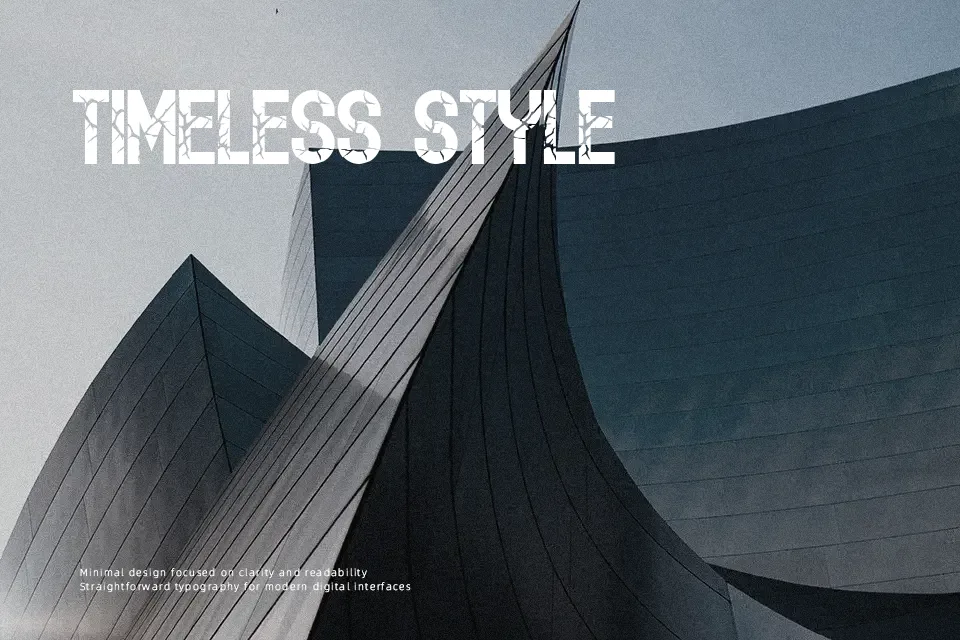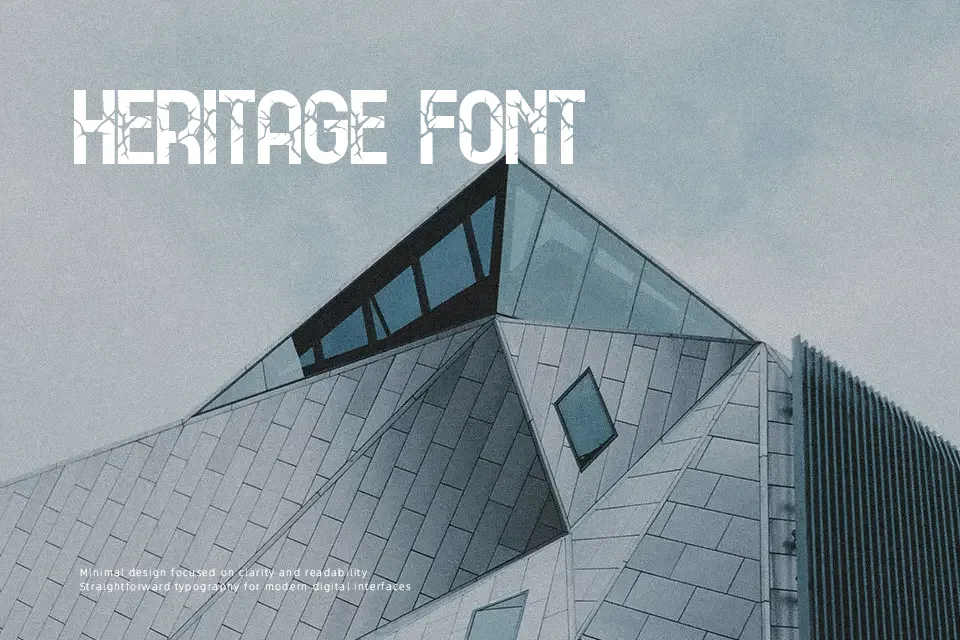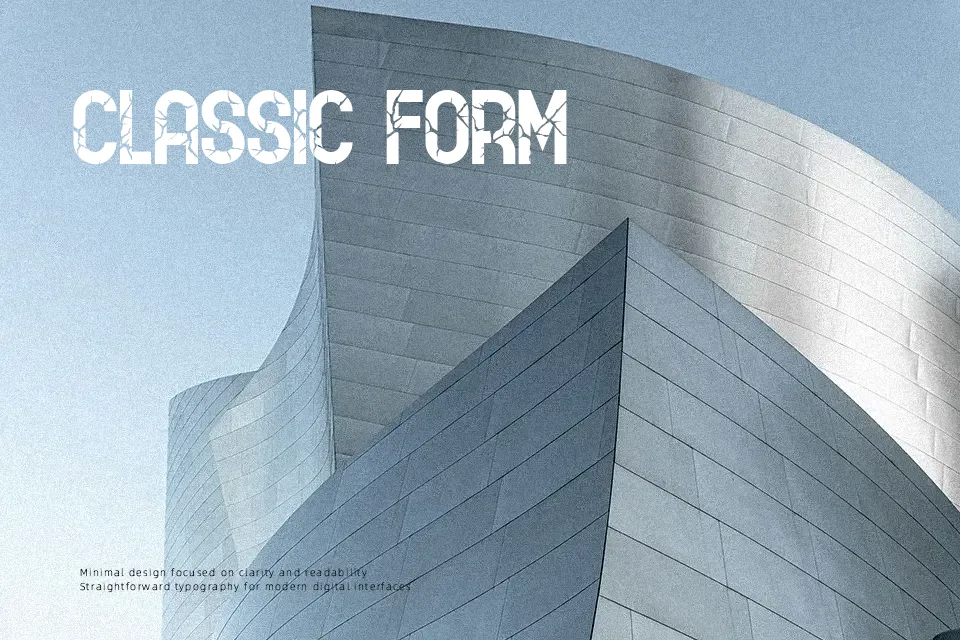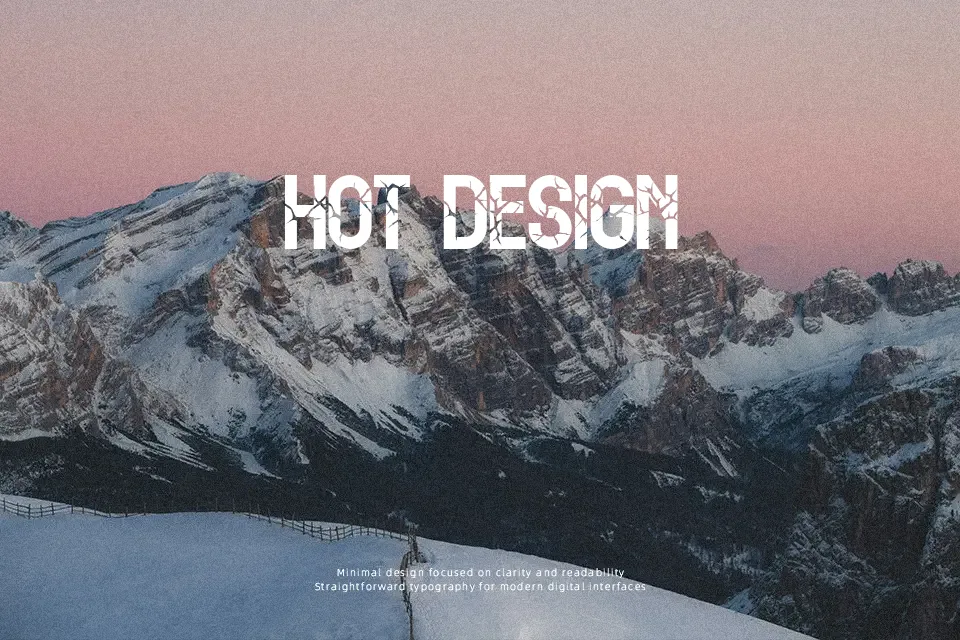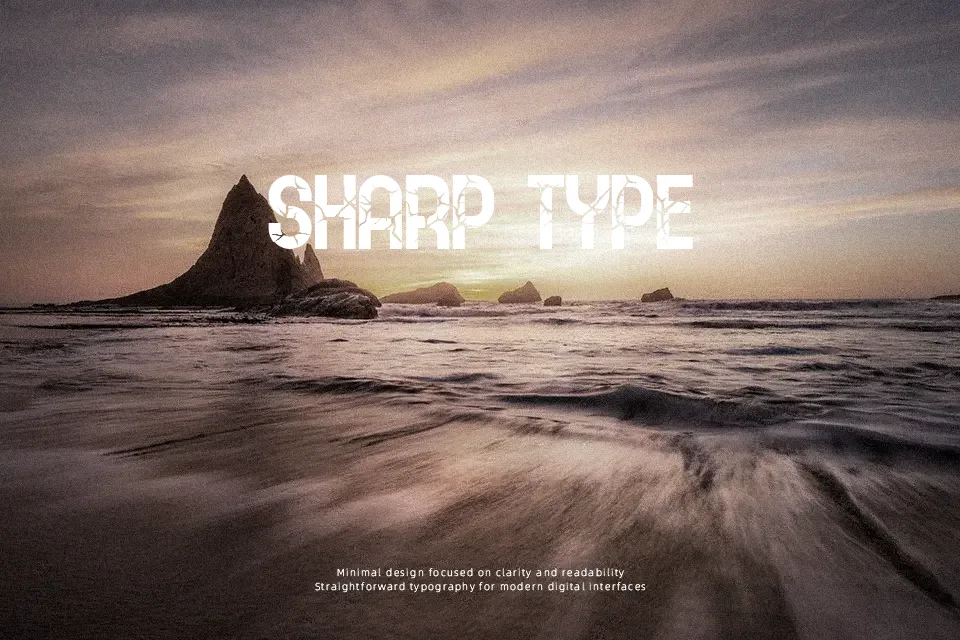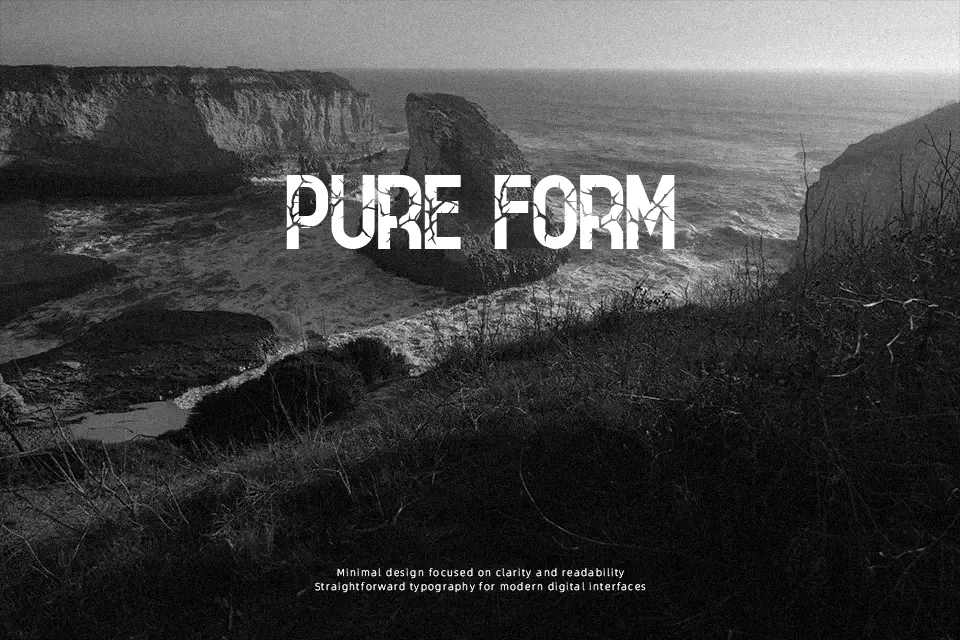
Three Step From Hell Font
Designed by Linafis Studio
Three Step From Hell Font features massive, blocky letterforms broken by jagged fissure lines and eroded crevices across every glyph. The typeface balances squarish proportions with compressed spacing to construct an imposing, continuous wall of text. Although irregular splintered incisions produce an aggressive display appearance, the robust exterior contours keep word shapes decipherable at headline scale. Practical testing shows the design excels in haunted attraction graphics, horror book jackets, and apparel graphics. Conversely, dense distressing and narrow kerning severely hinder comfort during continuous reading, rendering the letterforms ineffective for editorial paragraphs or compact captions.
Best For: horror movie title sequences, heavy metal album sleeves, Halloween event posters, haunted attraction signage
Not Ideal For: long paragraph body text, corporate annual reports, small mobile interface labels, dense spreadsheet documentation
Perfect for film, halloween, and headline, with a dark and decorative style.